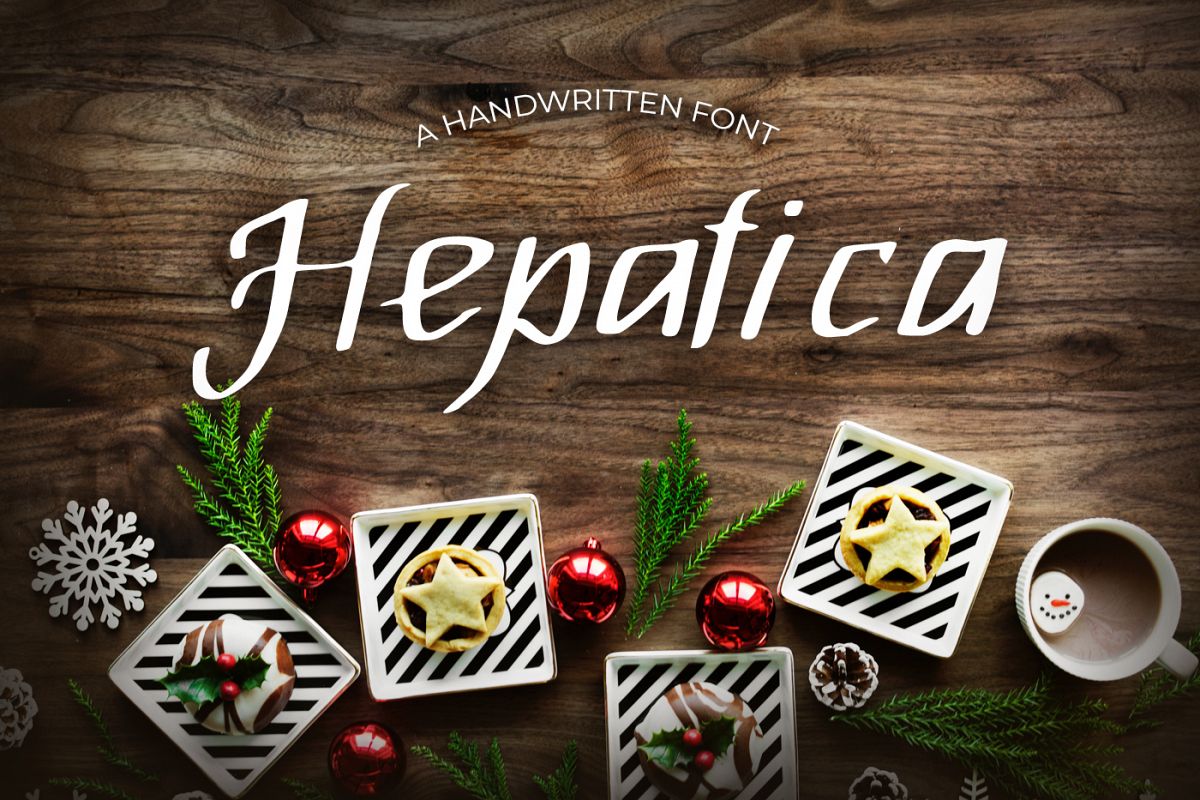
Hepatica Font
it's a wonderful font with a unique, detailed and handmade look.
These fonts look amazing in all caps with a wide-set spacing if you want to
try a classy look or beautiful on its own in capital and lowercase
letters for something completely timeless.
Perfect for gorgeous logos, displays, headers, invitations, save the dates, weddings, titles, web layouts, and branding, etc.